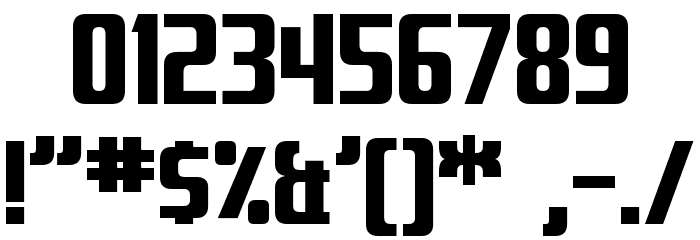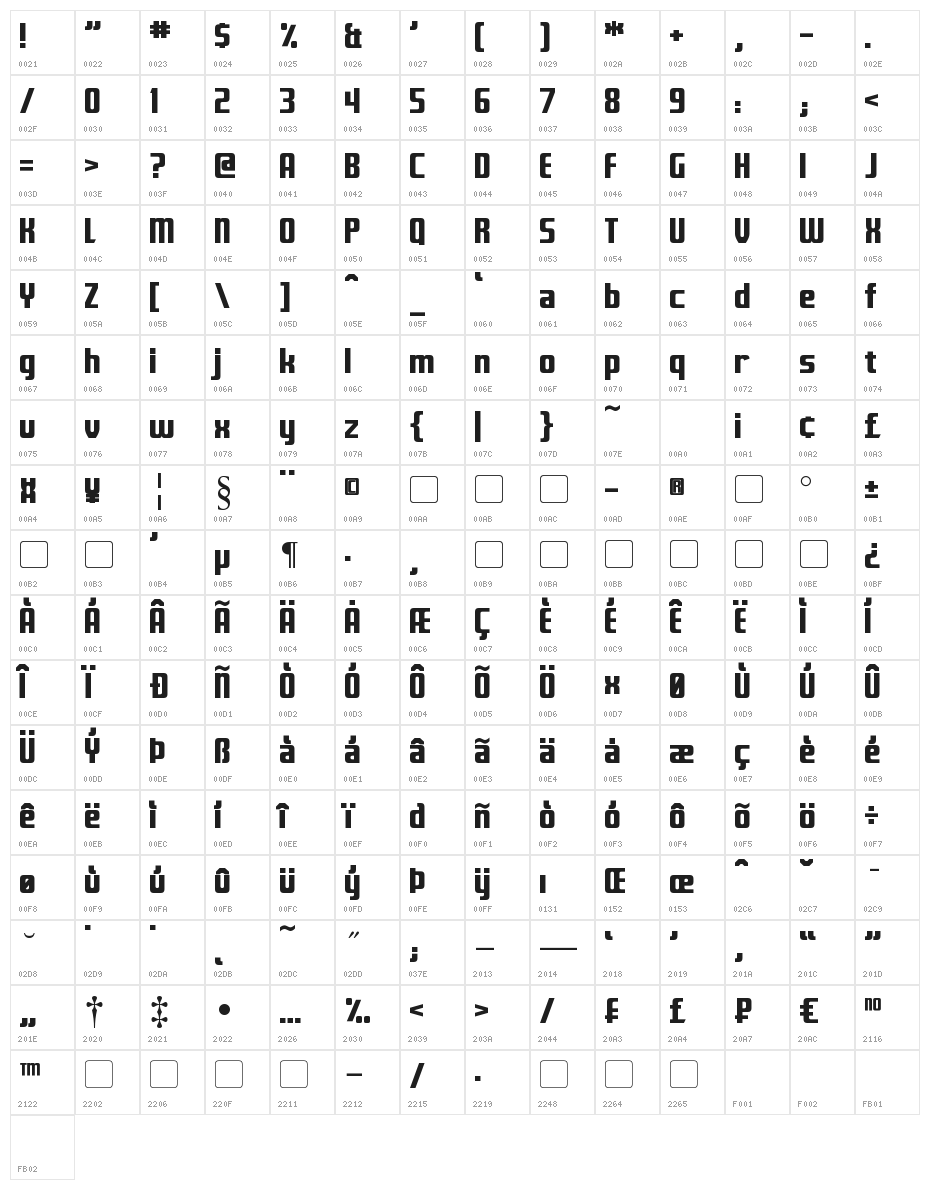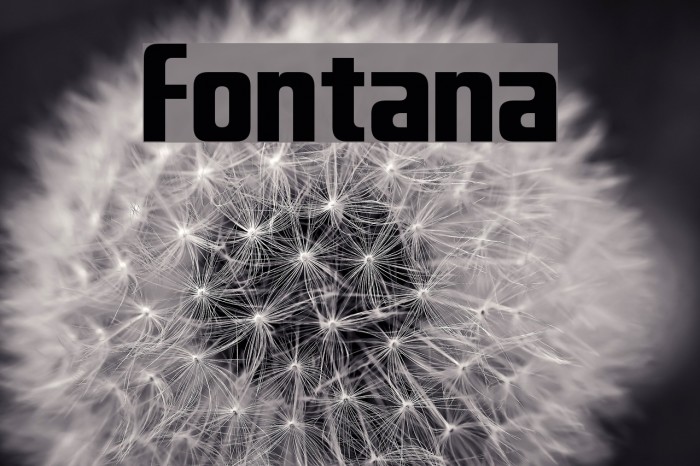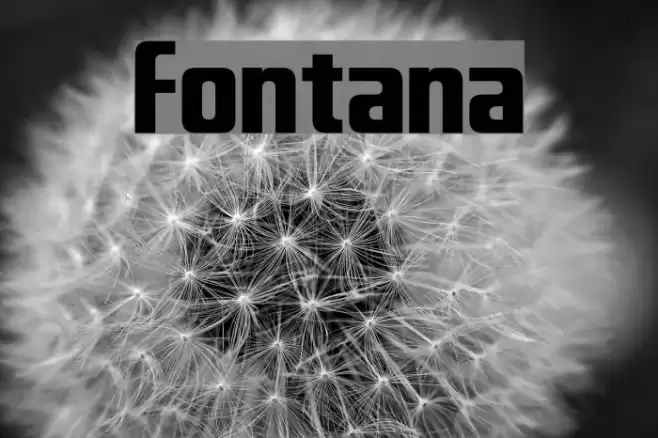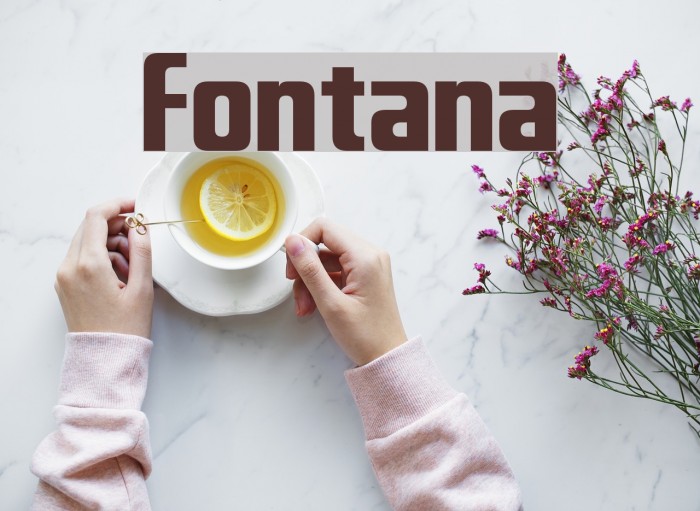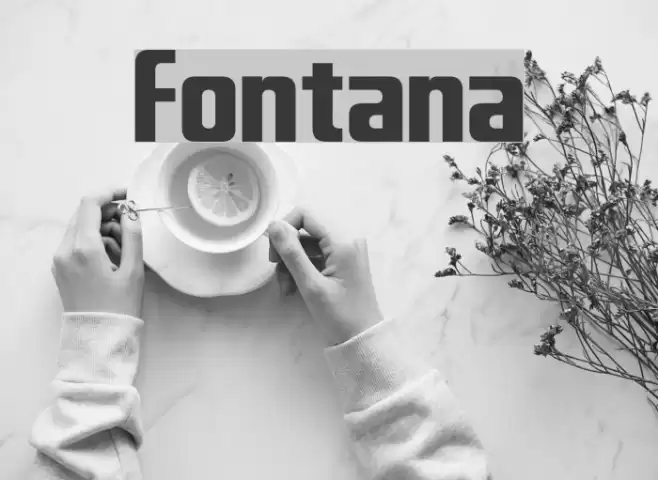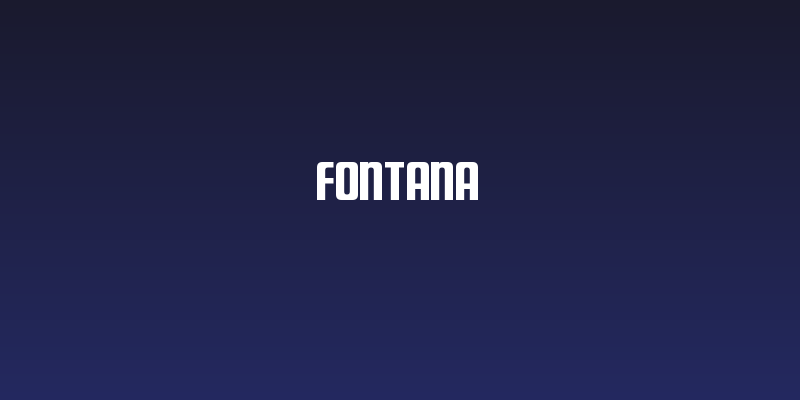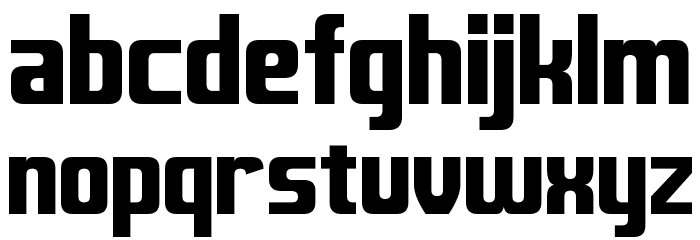
Fontana Font
Fontana Description
This font features a bold and geometric style with strong, block-like characters. The uppercase letters are uniform in height, creating a cohesive and structured appearance. The lowercase letters maintain the same boldness, with rounded edges that soften the overall look. The numerals are consistent with the letterforms, offering a clear and legible design. Special characters are well-integrated, maintaining the same weight and style as the alphanumeric characters. This font's design is modern and impactful, making it suitable for a variety of applications where a strong visual presence is desired.